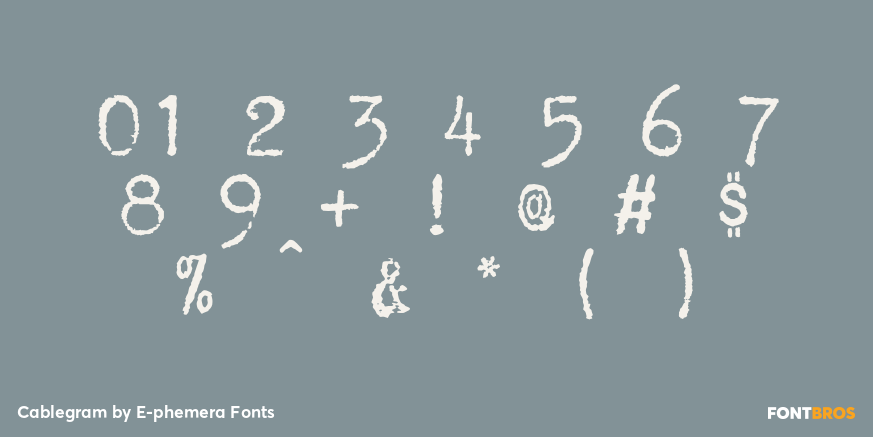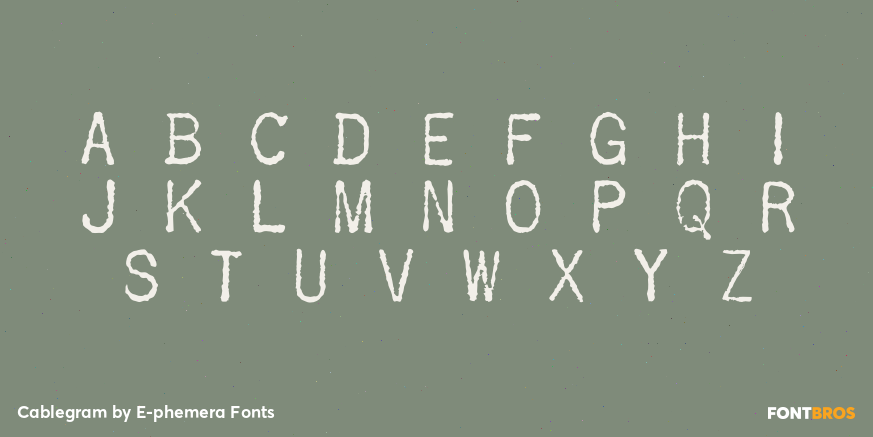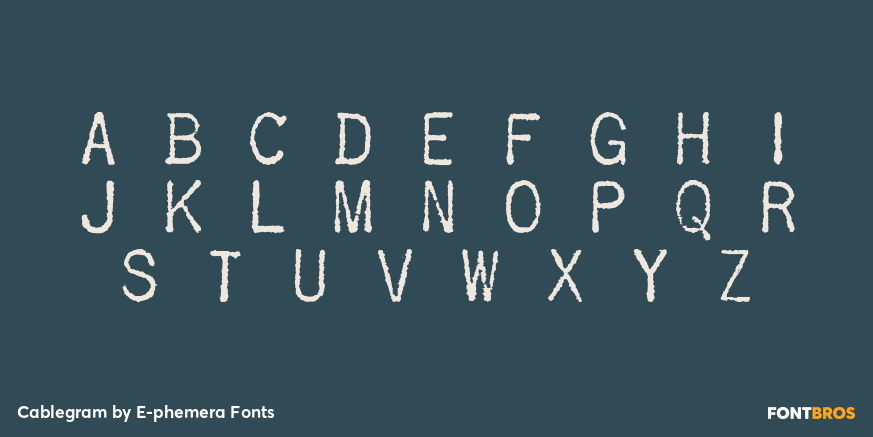
Cablegram
Font Family by E-phemera Fonts
This font by E-phemera is based on two different telegrams: the uppercase alphabet is from an Algerian telegram from 1903, and the lowercase is from a Yugoslavian telegram from 1915.